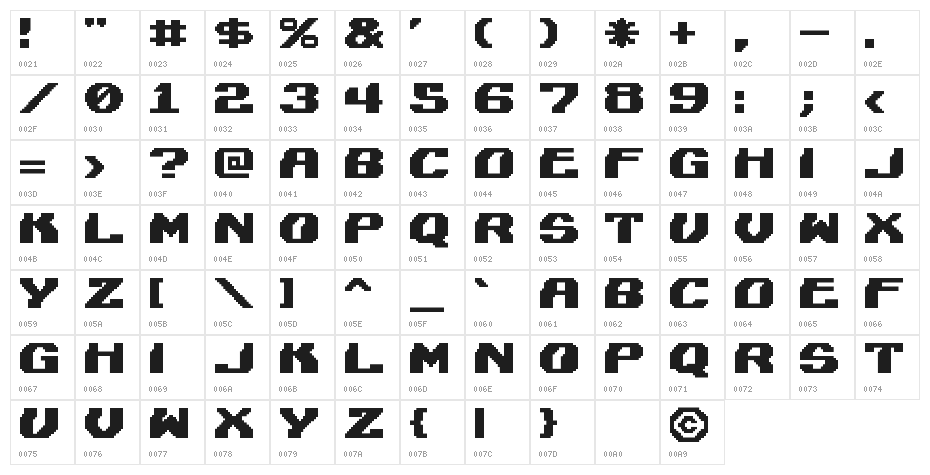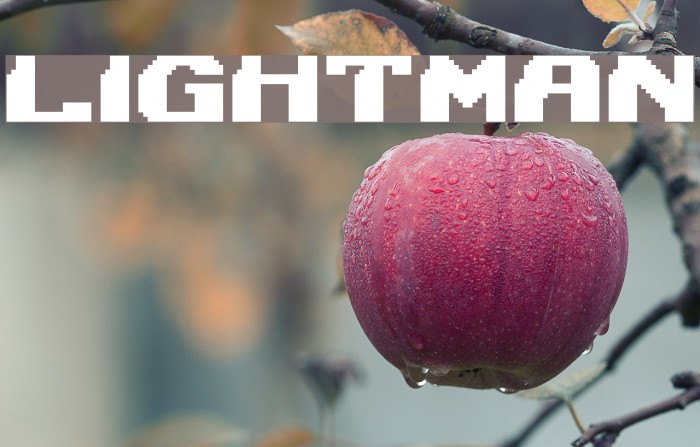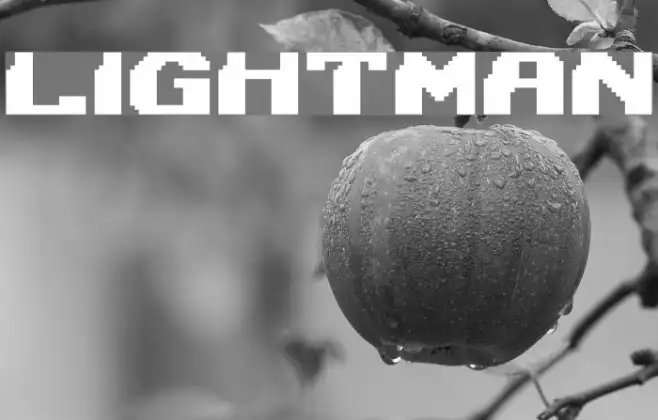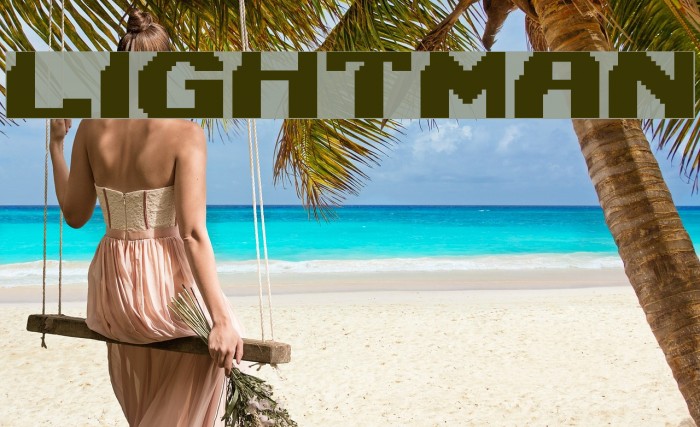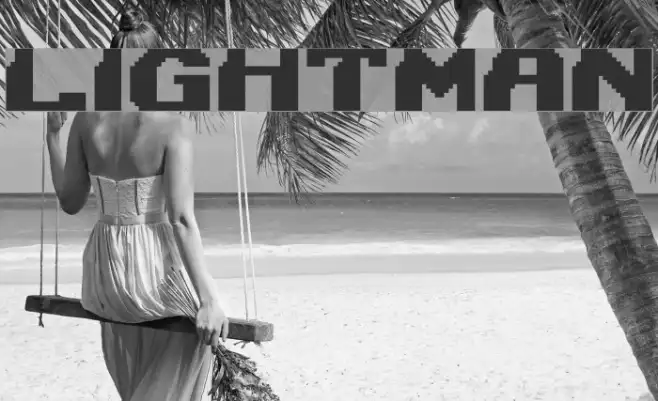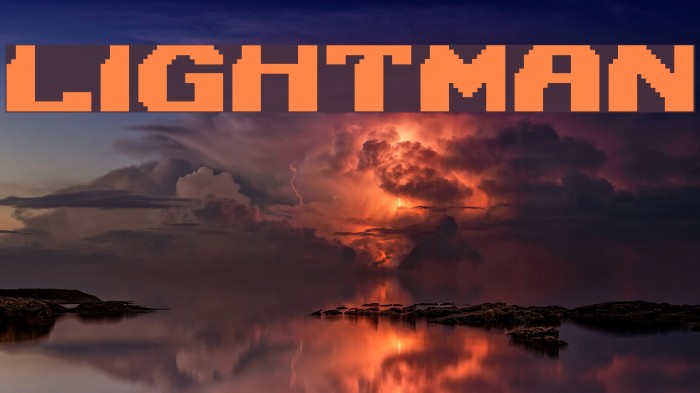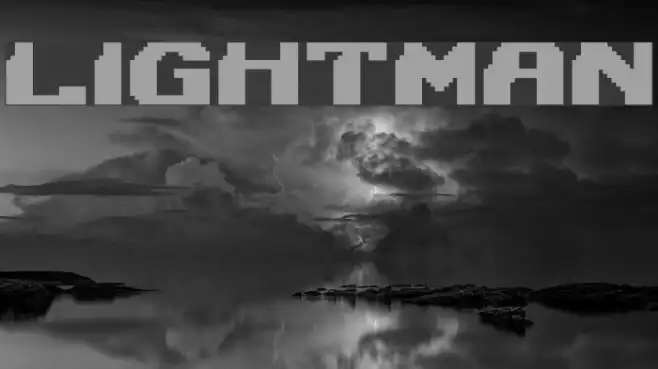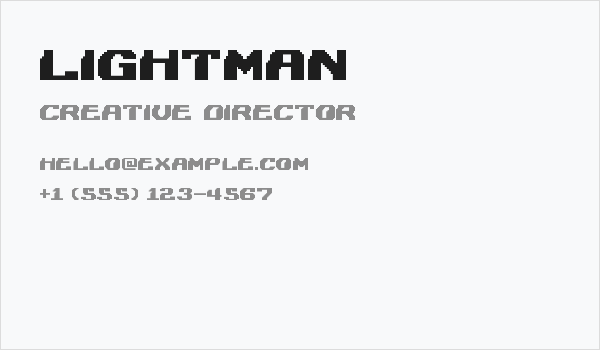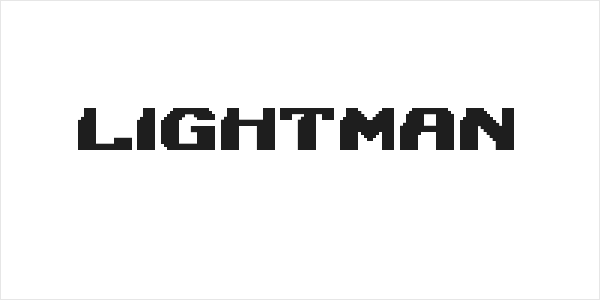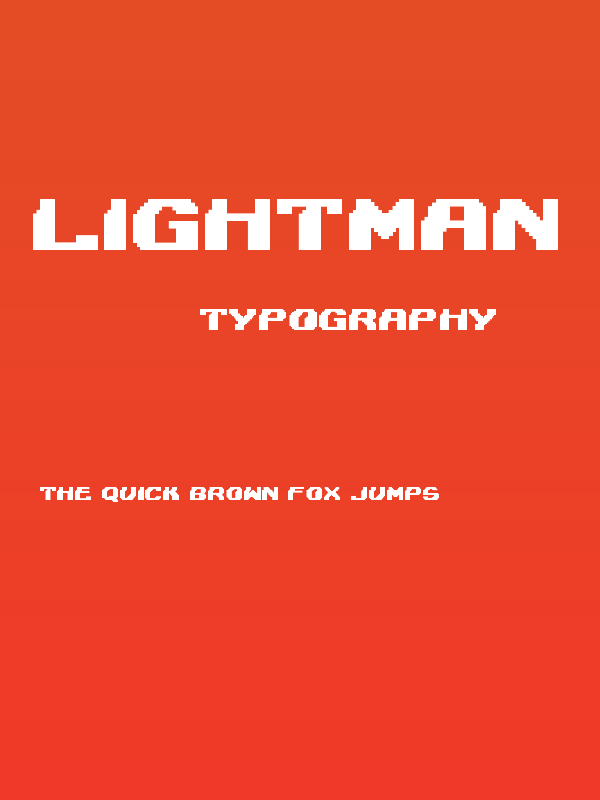
Lightman Font
Lightman Description
This font features a bold, geometric design with a distinctly modern and digital aesthetic. The characters are constructed with sharp, angular edges and a blocky appearance, reminiscent of early digital displays or pixel art. The uppercase and lowercase letters maintain a consistent height, contributing to a uniform look across text. The numerals and special characters follow the same design principles, ensuring cohesion throughout. This font's strong visual impact makes it suitable for attention-grabbing headlines or digital-themed projects.
| Proposed Projects | Ideal for digital art, video game graphics, tech-themed posters, and futuristic branding. |